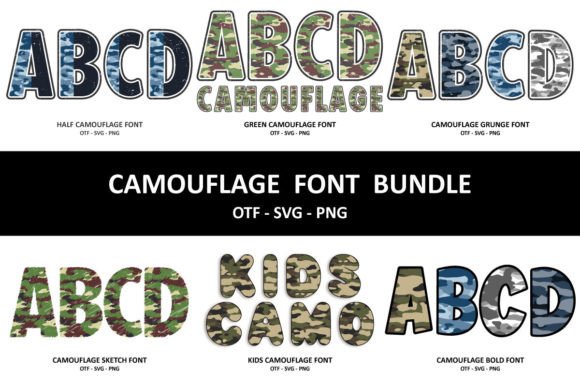
Unlock Your Creative Potential with the Camouflage Bundle Font
Have you ever been in the middle of a design project, and suddenly, you’re stuck on finding the perfect font? I recall a recent experience where I was working on a client’s branding project, and they specifically asked for a camouflage-themed font. After hours of searching, I stumbled upon the Camouflage Font Bundle, which not only met but exceeded my expectations. In this article, we’ll dive into the world of camouflage fonts, exploring the features, benefits, and creative possibilities of this fantastic bundle.
A Personal Review: What I Love About the Camouflage Bundle Font
Let’s get straight to it – here are the things I love about the Camouflage Bundle Font:
- ✨ 6 Unique Fonts: The bundle includes six distinct camouflage-style fonts that can add a touch of personality to any design project.
- 🎨 Design Possibilities: These fonts are ideal for a wide range of creative projects, from t-shirts and phone cases to cards, bags, mugs, and stickers.
While the Camouflage Bundle Font is an excellent resource, there are a few things to keep in mind:
The Designer’s Inspiration Behind the Camouflage Bundle Font
The Camouflage Bundle Font was inspired by the great outdoors and the world of military design. The designer wanted to create a font that would capture the essence of camouflage and provide a unique and creative resource for designers and crafters.